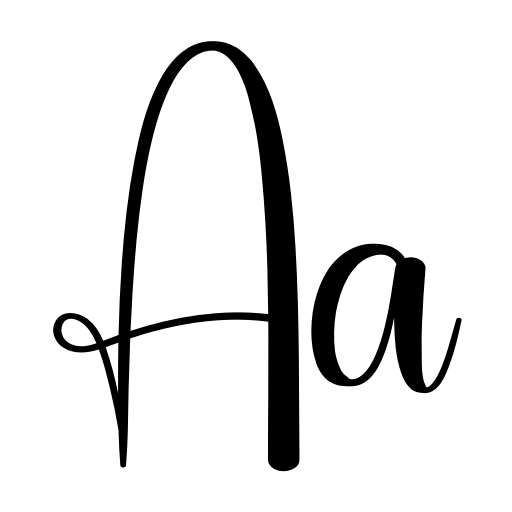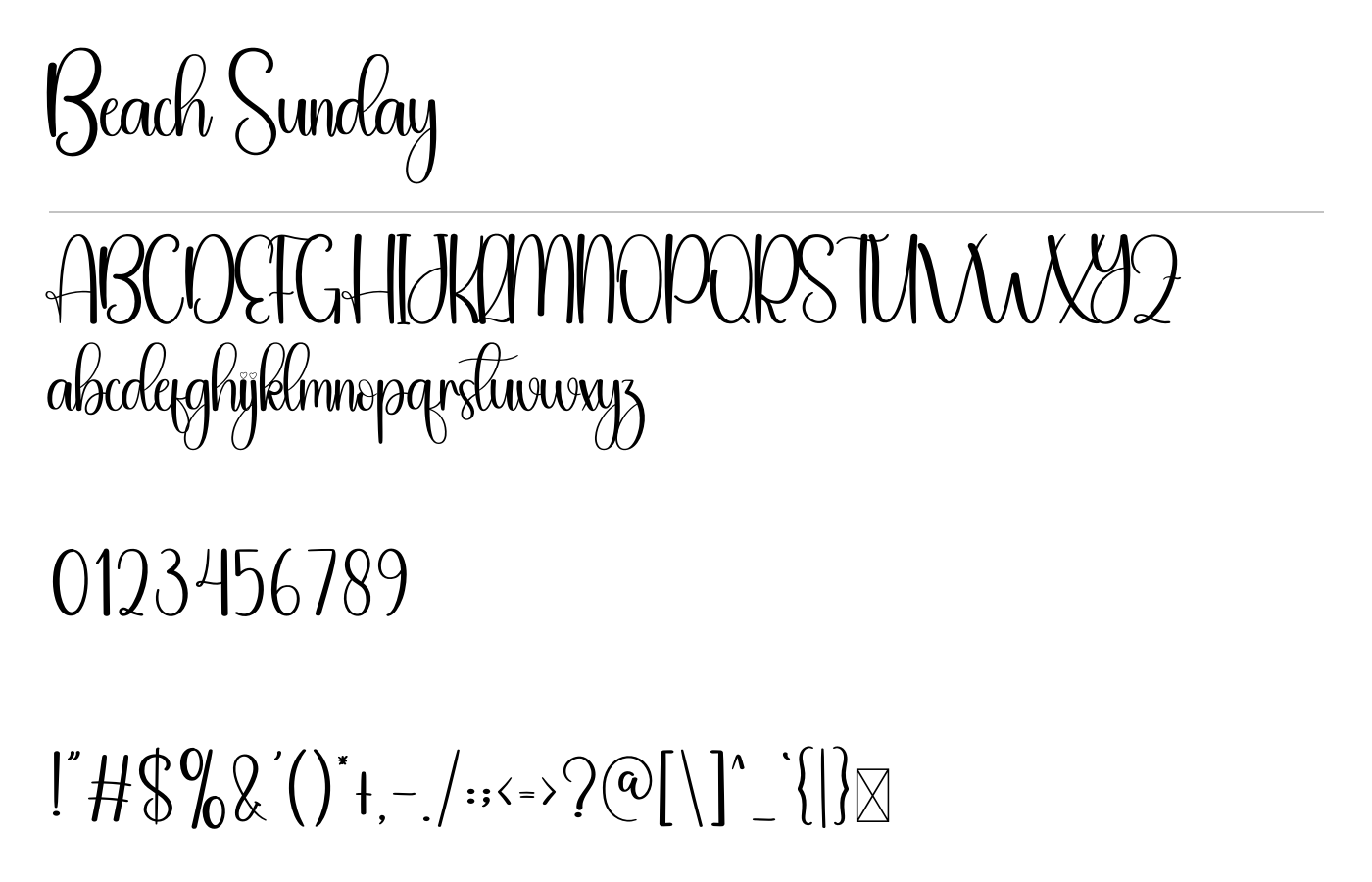
Beach Sunday is a playful, handwritten script font with tall, narrow letterforms and a lively, casual feel. Its thin strokes and elegant curls give it a whimsical and friendly character, perfect for creative branding, invitations, and lifestyle designs seeking a personal, informal touch. This font works best in headlines and logos where a charming, approachable style is desired.
Beach Sunday Font
About Beach Sunday Font
| Font family | Beach Sunday Font |